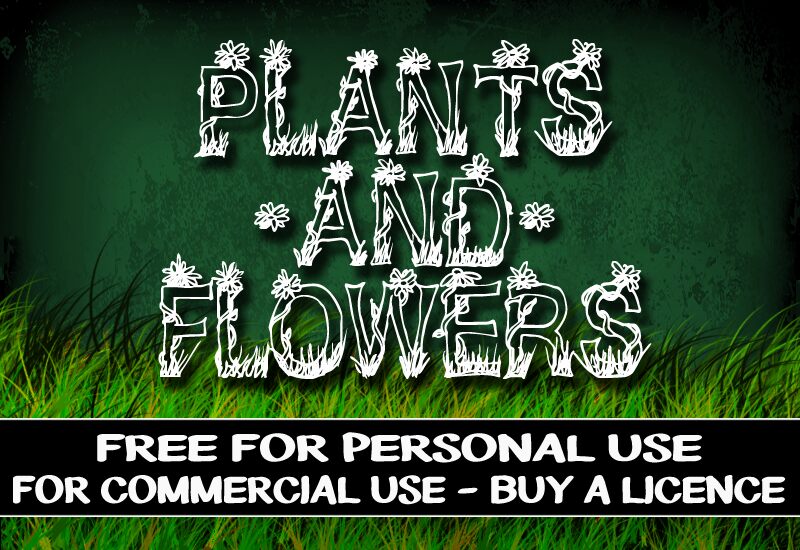
CF Plants and Flowers, created by Cloutier Fontes, is a free decorative display font that turns tall outlined capitals into a miniature garden. Broad, gently irregular letters carry curling vines, clustered blossoms, pointed leaves, and tufts of grass around their bases. The ornament is dense and hand-drawn, yet the open interiors keep the alphabet recognizable beneath the plant forms.
Gardening and wildflower themes make it especially apt for seed packaging, spring event posters, and children's nature publishing, where lettering can share the page with botanical illustration rather than act as a separate caption. It could also become a floral emblem for a garden center's branding.
CF Plants and Flowers Regular is a font by CloutierFontes, designed by Steve Cloutier in 2013.